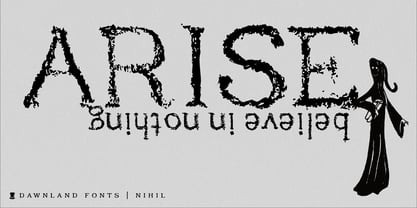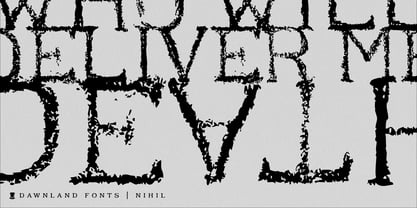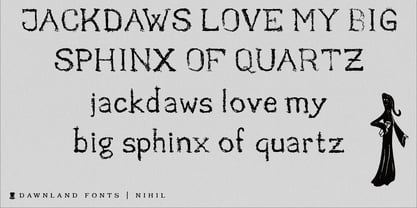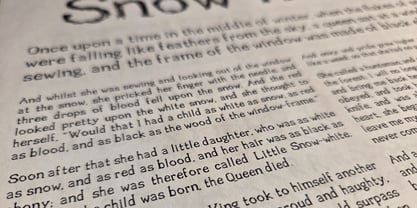
Nihil
von Dawnland
Die Schriftfamilie Nihil wurde von Daniel Viberg entworfen und von Dawnland veröffentlicht. Nihil enthält 1 Stile.
Hand drawn, sketchy antiqua inspired by classic serif fonts such as Garamond, this pencil drawn typeface give your designs a unique and elegant, yet distressed look, perfect for game dsig, packaging and posters, like most Dawnland fonts. One of the first fonts by Daniel, Dawnland and of course the font has it's own mascot. Like all Dawnland fonts. Enjoy!
Über Dawnland
Creating visual experiences since 1999, Dawnland – Daniel Viberg – works with identity, lettering, fonts, and illustration. Daniel is a graphic designer with a vivid interest in graphic storytelling, which won’t go unnoticed in his productions. This has resulted in a lot of imaginative illustrations, as well as cards and games. His inspiration comes from Swedish folklore and music, from books, films and stories, as well as from all the members of his family. The recent years Daniel has evolved to further embrace the crafting of letters by hand, pens and paper.